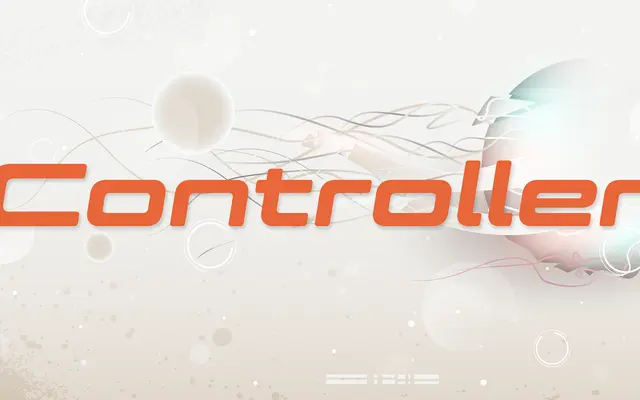
Controller specimen from Dharma Type
A geometric rounded sans with five weights and obliques, drawing on late 20th-century West Coast techno-organic design aesthetics.
Precise geometric construction is tempered by soft rounded terminals, giving the family a clean, approachable character suited to both screen and print. An Extended width variant broadens its range, and an alternate uppercase 'N' via OpenType stylistic sets offers a small measure of typographic flexibility. Well-suited to branding, UI and motion graphics work where a friendly geometric tone is required.
Described explicitly as a geometric rounded sans-serif; the precise geometric structure with subtle rounding places it firmly in the geometric sans subcategory with humanist softening.